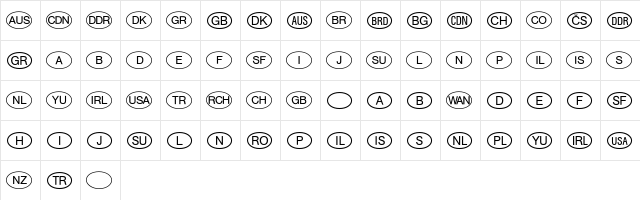
InternationalSymbols P01 Font Preview
InternationalSymbols P01
InternationalSymbols P01 Font Details
Design Context for InternationalSymbols Typeface
InternationalSymbols takes a measured approach to typography — its balanced proportions and neutral character make it a reliable workhorse for both digital and print work.